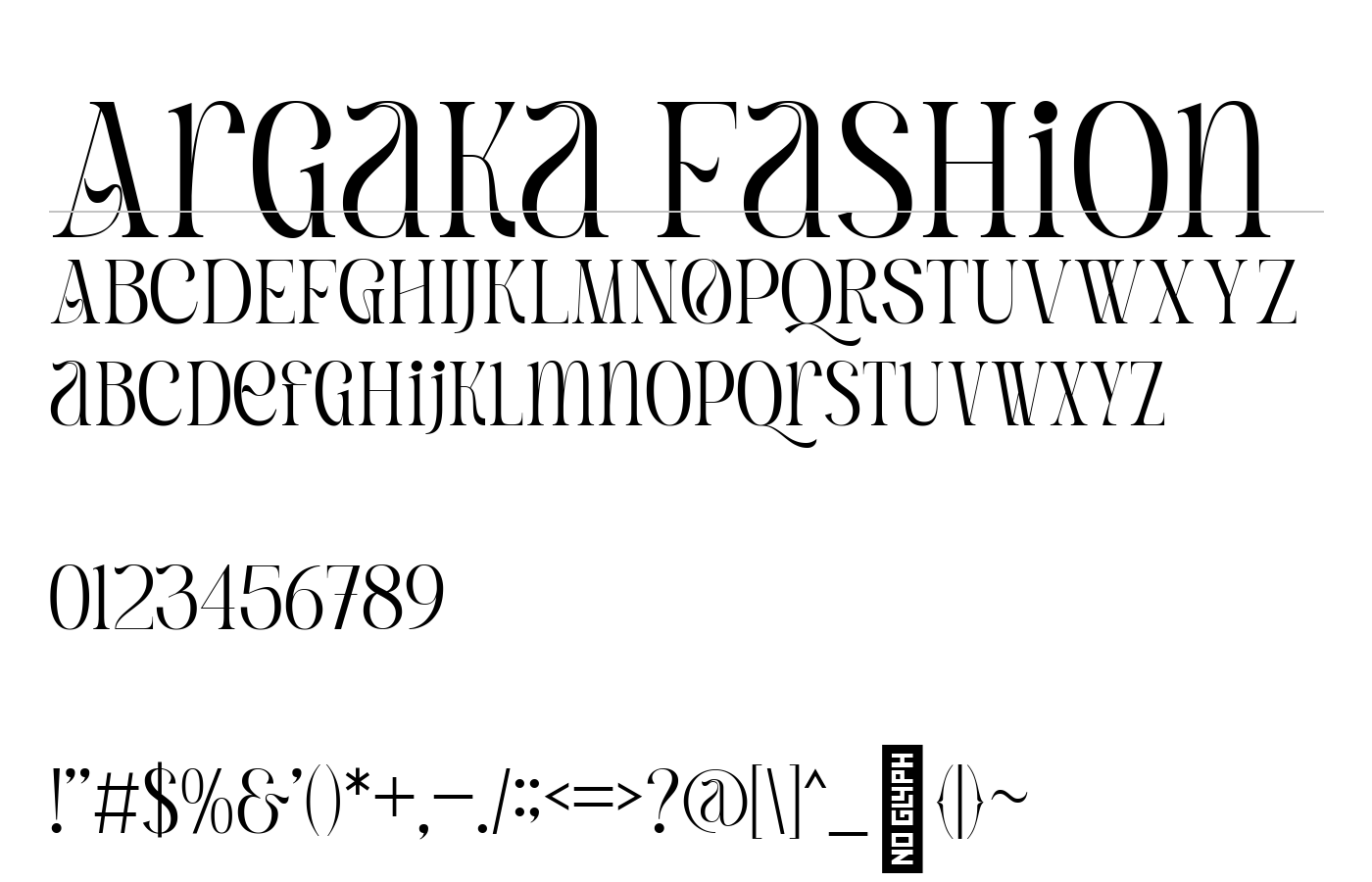
Argaka Fashion Font is a high-contrast serif typeface with elegant, slender letterforms and distinctive decorative flourishes that create a sophisticated and modern look. Its tall, narrow structure and refined details make it ideal for fashion branding, luxury editorial headlines, and stylish logo designs where a unique, graceful presence is desired. This font effortlessly blends classic serif elegance with contemporary flair, giving any design a chic and upscale feel.
Argaka Fashion Font
About Argaka Fashion Font
| Font family | Argaka Fashion Font |
| Designer | Sigit Dwipa Raharjo |